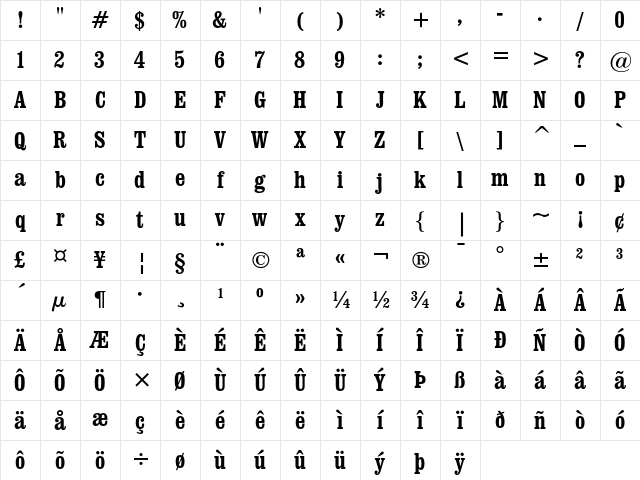
Clarendon Bold Condensed
Style: Bold Condensed
Clarendon Family
Clarendon Bold Condensed
Design Context for Clarendon
Clarendon features prominent, blocky serifs that give it a confident, grounded presence - equally at home in editorial settings and bold branding work. Its bold stroke weight gives it real presence on the page. Its narrow stance lets it pack a punch even in space-constrained designs.
Pro Tip: Use Clarendon for headlines and subheadings where its slab serifs can make an impression. It also holds up well in mid-size body copy thanks to its sturdy construction.